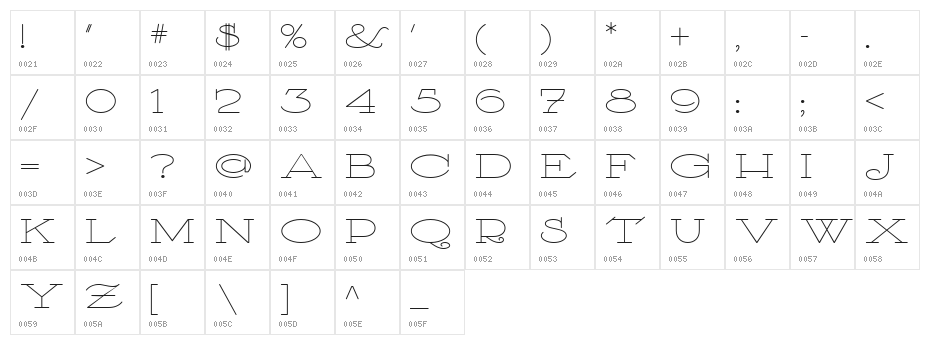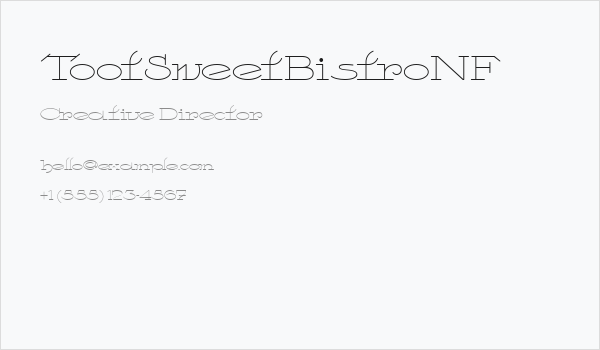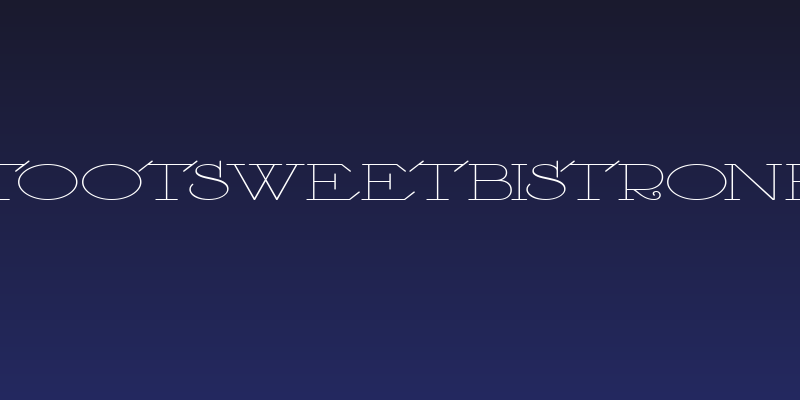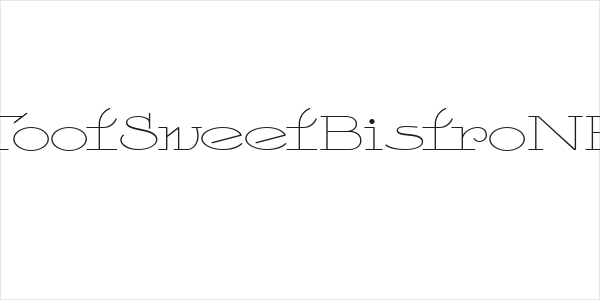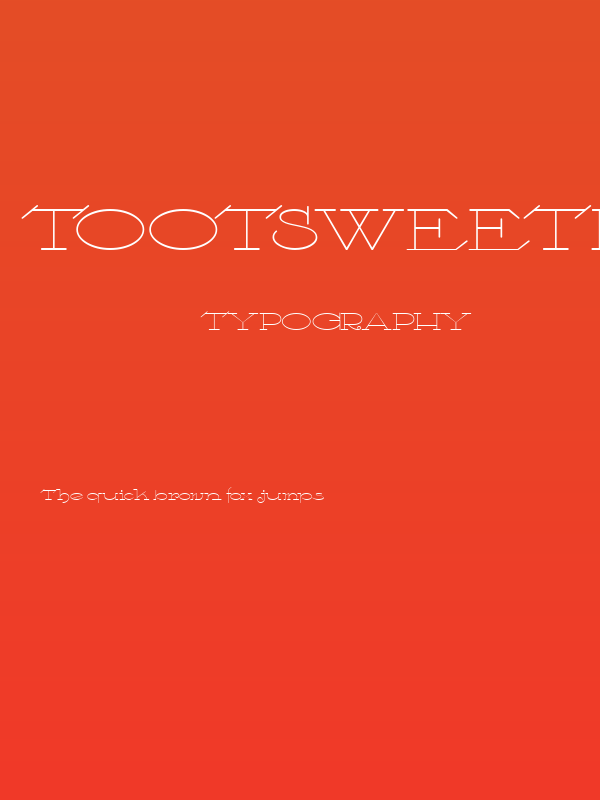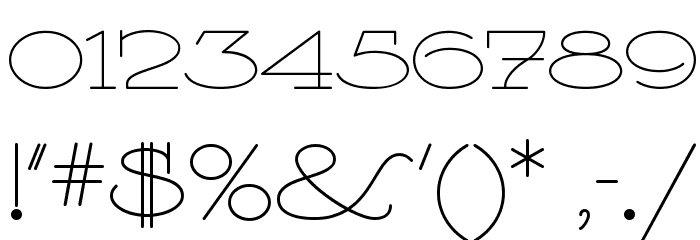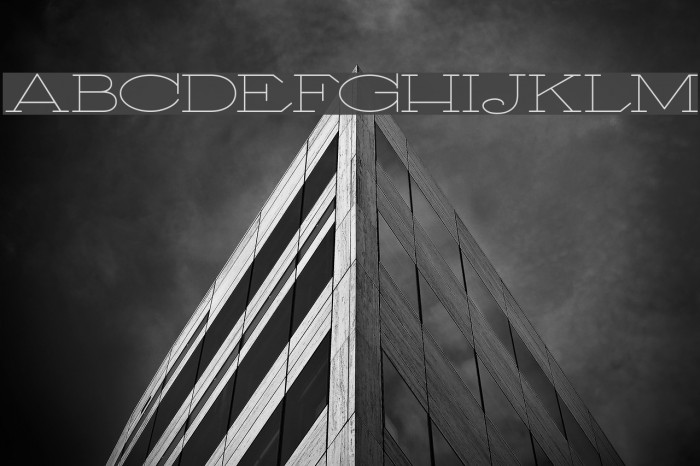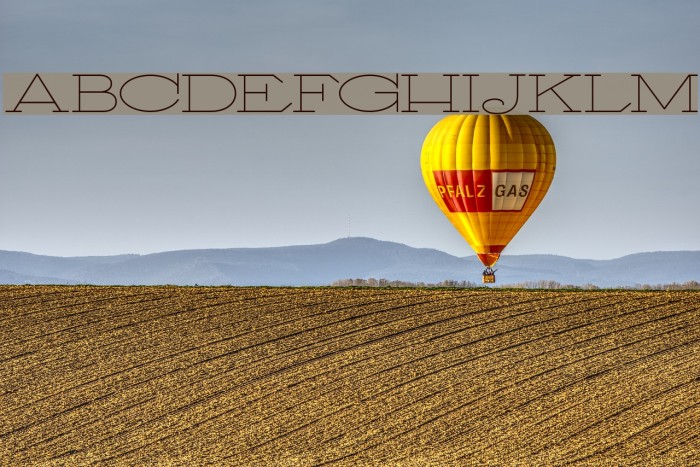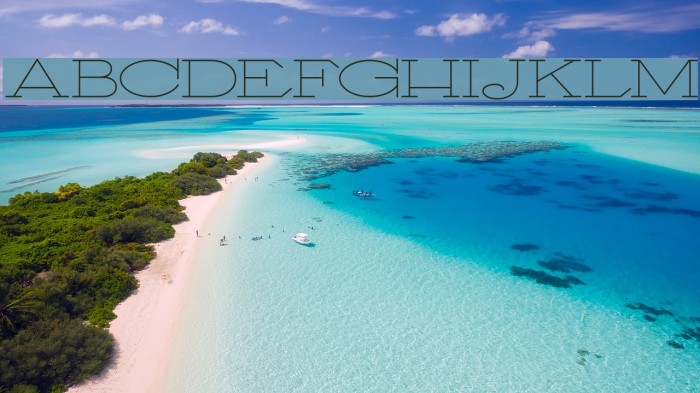
TootSweetBistroNF Font
TootSweetBistroNF Description
This font features a unique blend of elegance and modernity, characterized by its thin, delicate lines and subtle decorative elements. The uppercase letters have a distinct geometric form with slight flourishes, particularly noticeable in characters like 'Q' and 'R'. The lowercase letters maintain a consistent style, with some characters like 'g' and 'f' having intricate loops and curves. Numbers are clean and straightforward, complementing the overall aesthetic. Special characters are thoughtfully designed, adding a touch of sophistication. The font's airy and open feel makes it suitable for projects that require a touch of elegance and modernity.
| Use Case | Logos, Headlines, Invitations |
| Proposed Projects | Ideal for wedding invitations, luxury branding, high-end product packaging, and editorial design. |